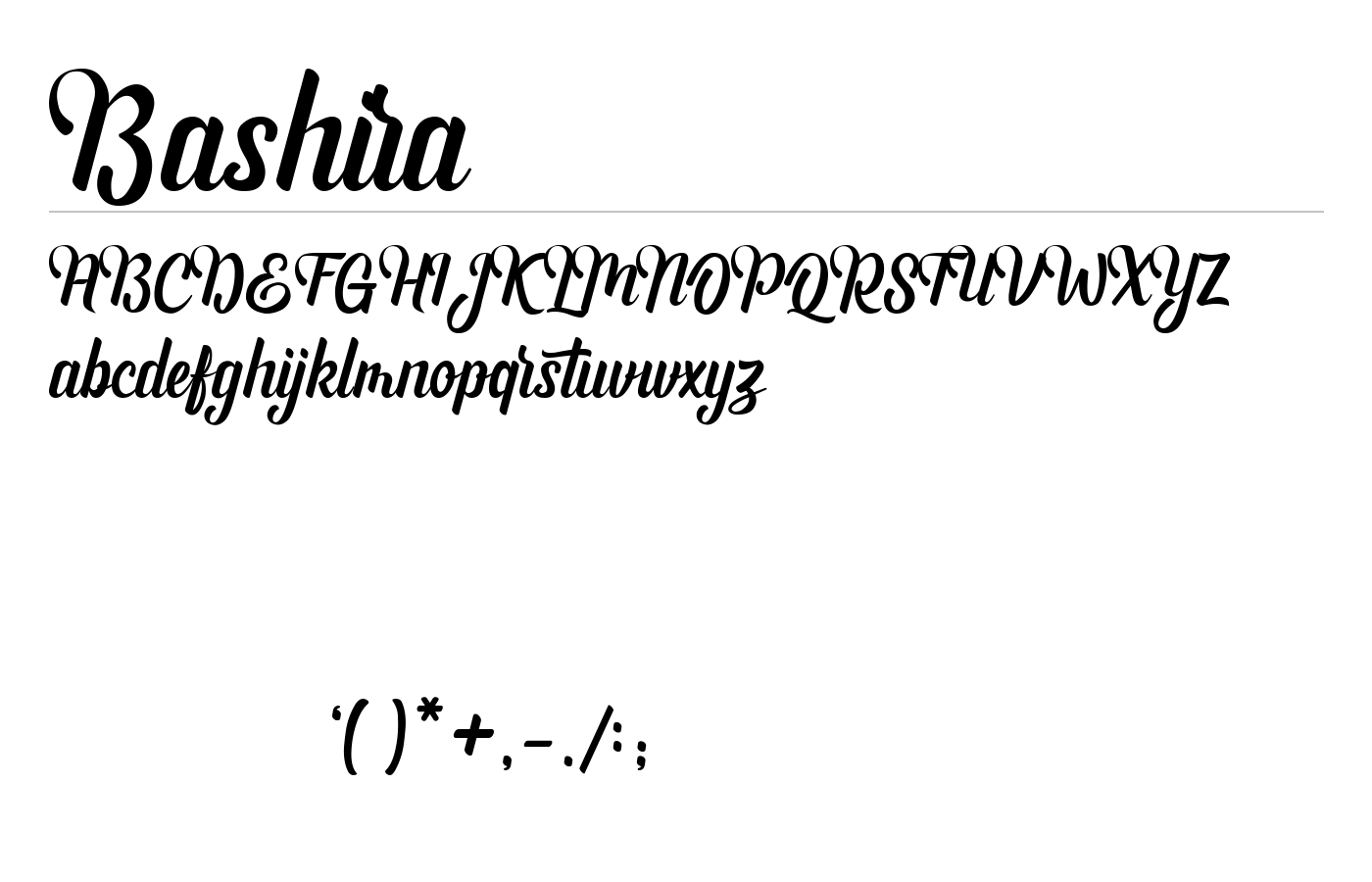
Bashira is a stylish script font with a bold weight and elegant, flowing letterforms that combine modern flair with classic calligraphic touches. Its smooth, slightly condensed strokes and distinctive character shapes make it perfect for adding a sophisticated, personal feel to branding, invitations, and headlines. This font works especially well where a creative, charming, and confident impression is desired.
Bashira Font
About Bashira Font
| Font family | Bashira Font |
| Designer | Nurf Designs |